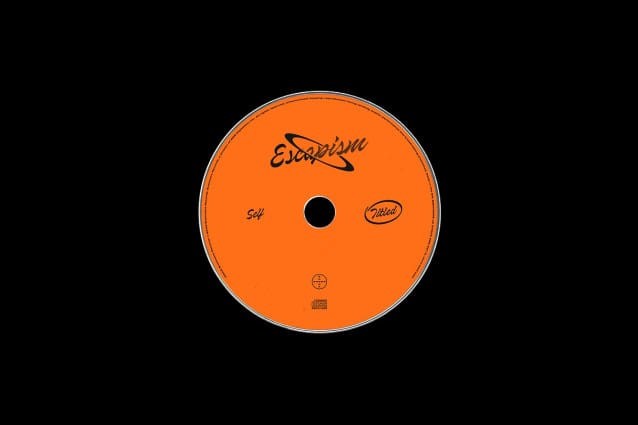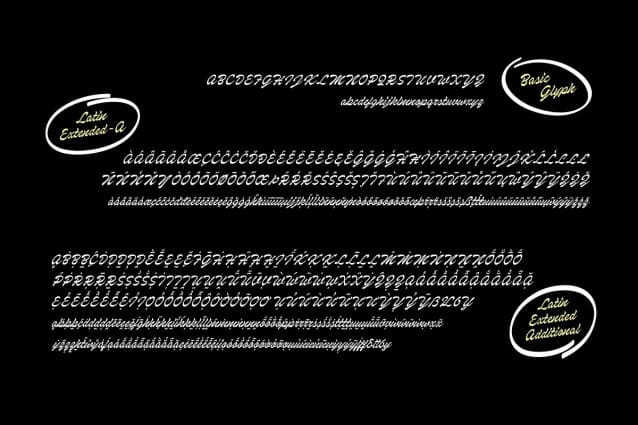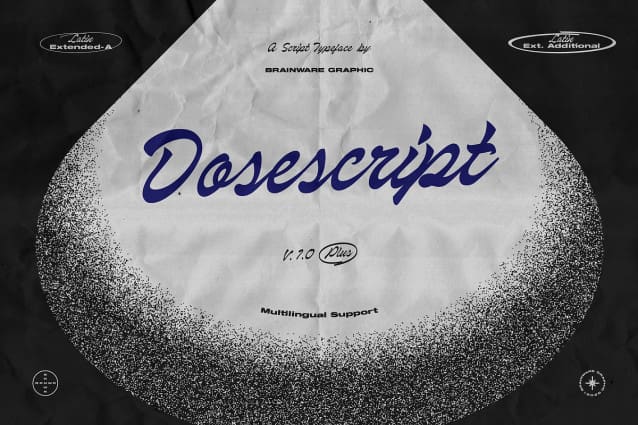
Dosescript Font
Dosescript Font is a classic casual script typeface inspired by legendary script from the 40s, developed with sharpening and a little bit of contrast.
Although retro is not only suitable for vintage designs, it is also suitable for modern designs such as magazine headlines or advertisement headlines.